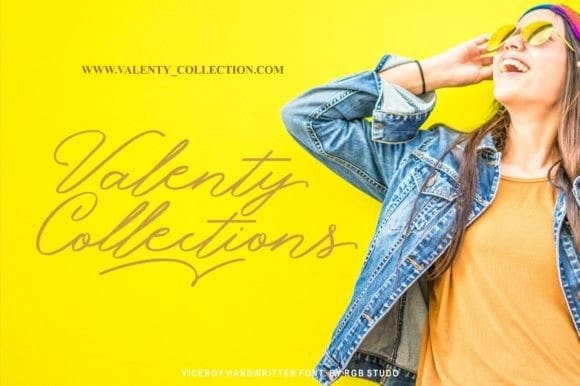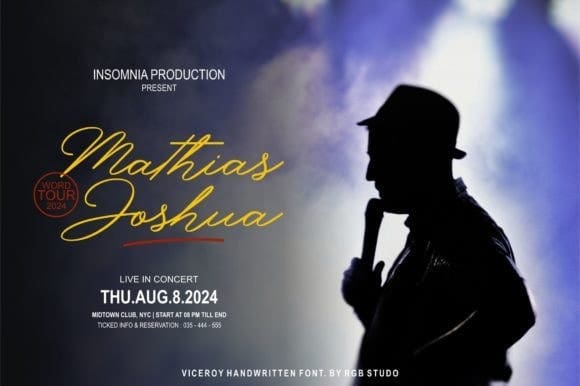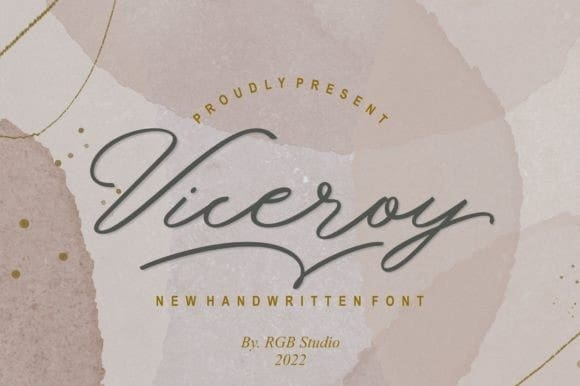
Viceroy Script Font
Viceroy Script Font, is a stylish modern calligraphy font with casual chic flair. It is perfect for branding, wedding invites and cards, and maybe for red wine labels.